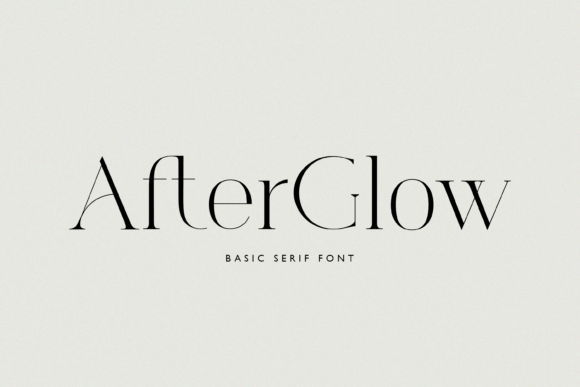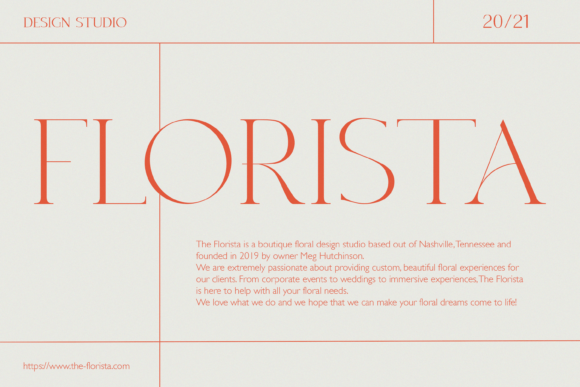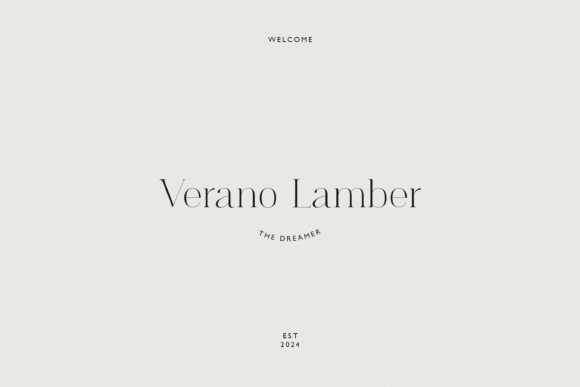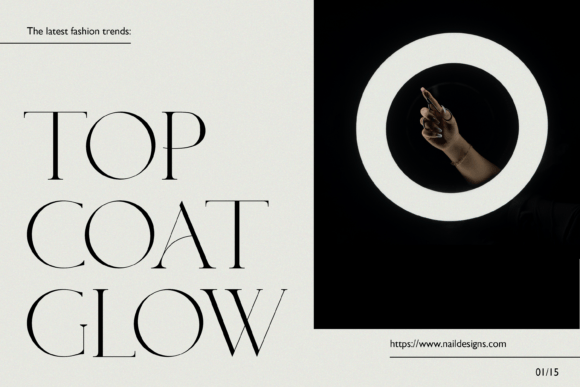
Afterglow Font: Elegant Serif for Modern Logo Design
About the Afterglow Font
Let us introduce you to Afterglow Font, where timeless design meets modern craftsmanship. AfterGlow is a stylish and timeless font that effortlessly blends elegance with a touch of fashion-forward flair. Perfect for invitations, logos, or any branding project, this classic font adds a refined and sophisticated touch to your designs. Elevate your creative projects with Afterglow’s versatile charm, making it an ideal choice for those seeking a tasteful and enduring aesthetic.
Afterglow excels in display applications such as logos, headlines, short-form text on posters and invitations, and even packaging where a touch of elegance is desired. Its refined serifs and slightly condensed letterforms work against large blocks of body text or long paragraphs; it’s best suited for impactful statements rather than extended readability. Avoid using it in user interfaces or situations requiring extensive text.
To complement its sophisticated personality, pair Afterglow with clean sans-serif fonts like Montserrat or Lato for a modern feel, or a contrasting geometric sans-serif such as Futura for a more structured look. For a touch of warmth, a classic serif like Garamond or a script font with a similar level of refinement can create a balanced and harmonious pairing.
Afterglow projects an overall sophisticated and slightly elegant personality. It suits brands focusing on luxury goods, fashion, beauty, or high-end services where a timeless yet stylish aesthetic is key.
Afterglow Font Usage Examples
Afterglow Font Example